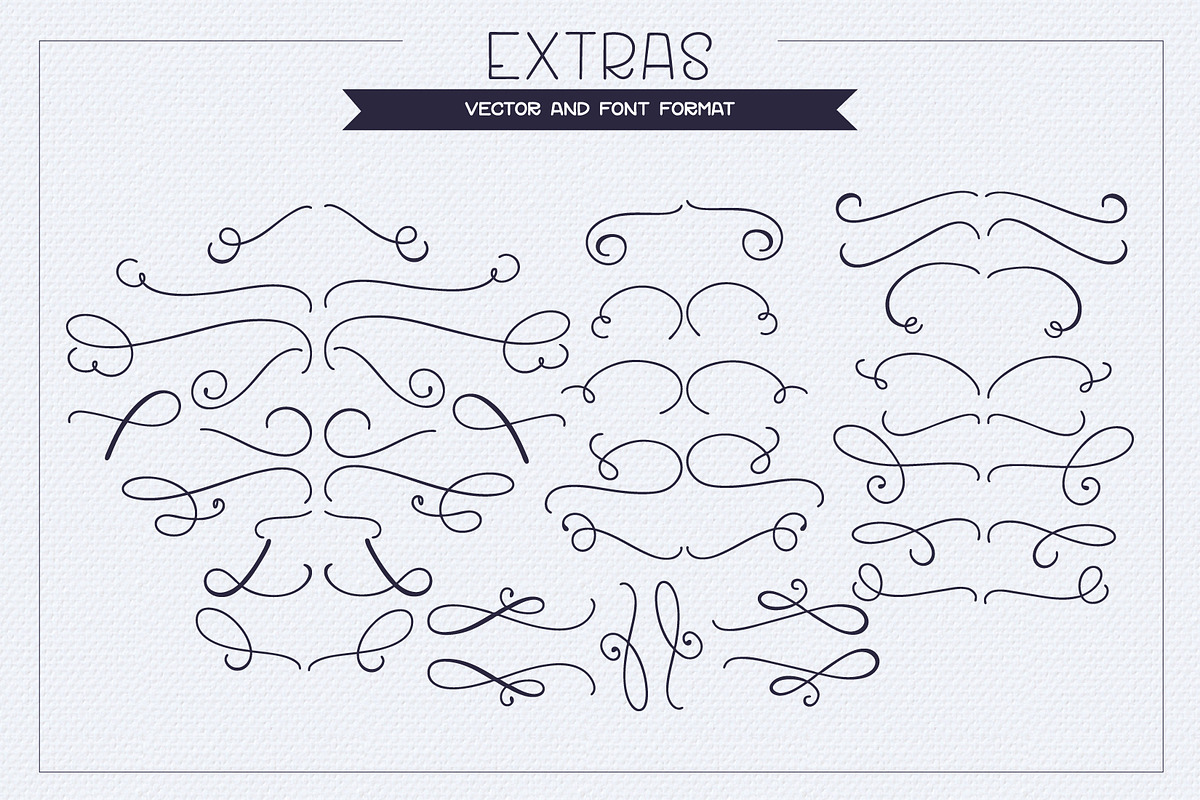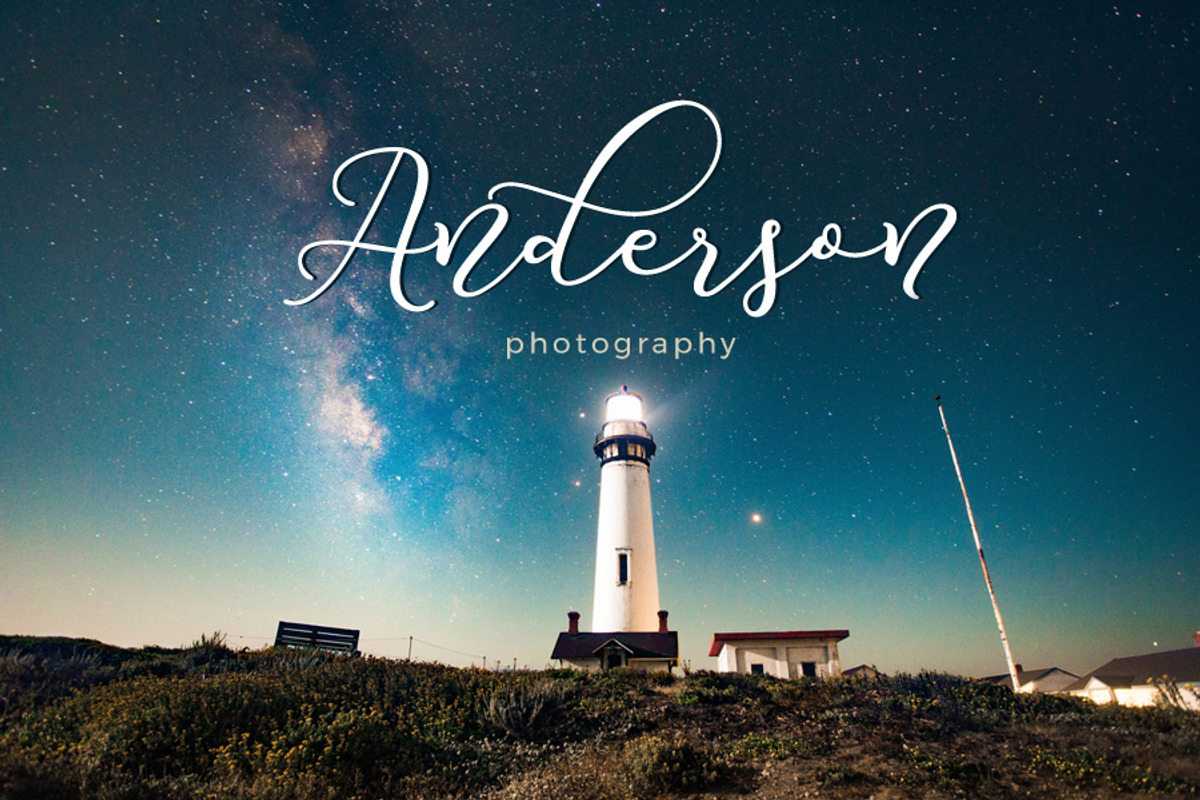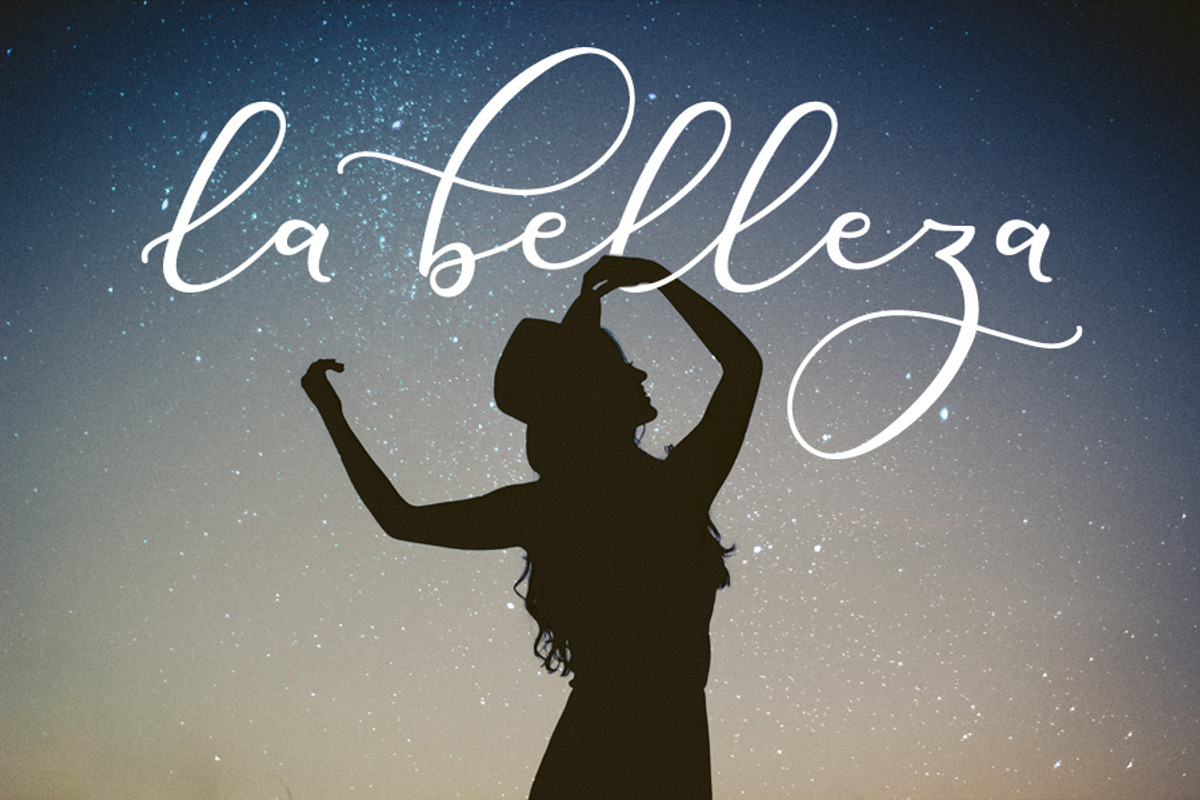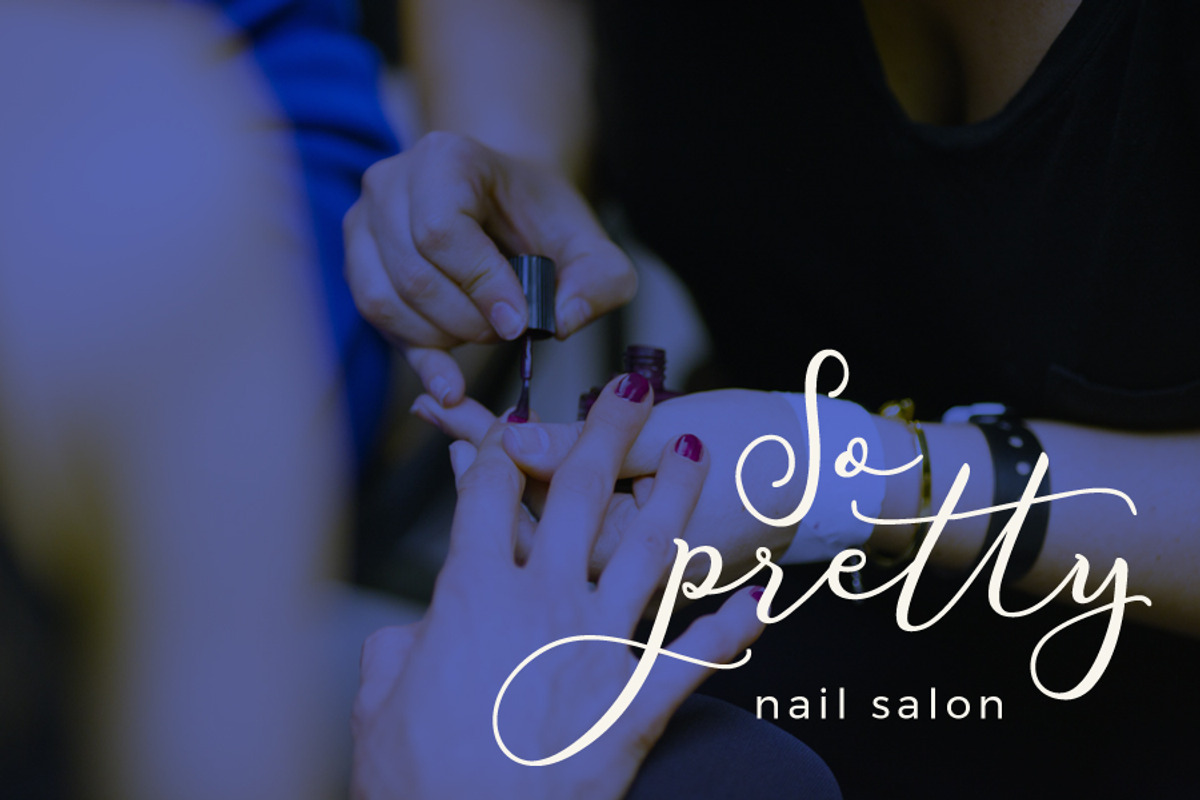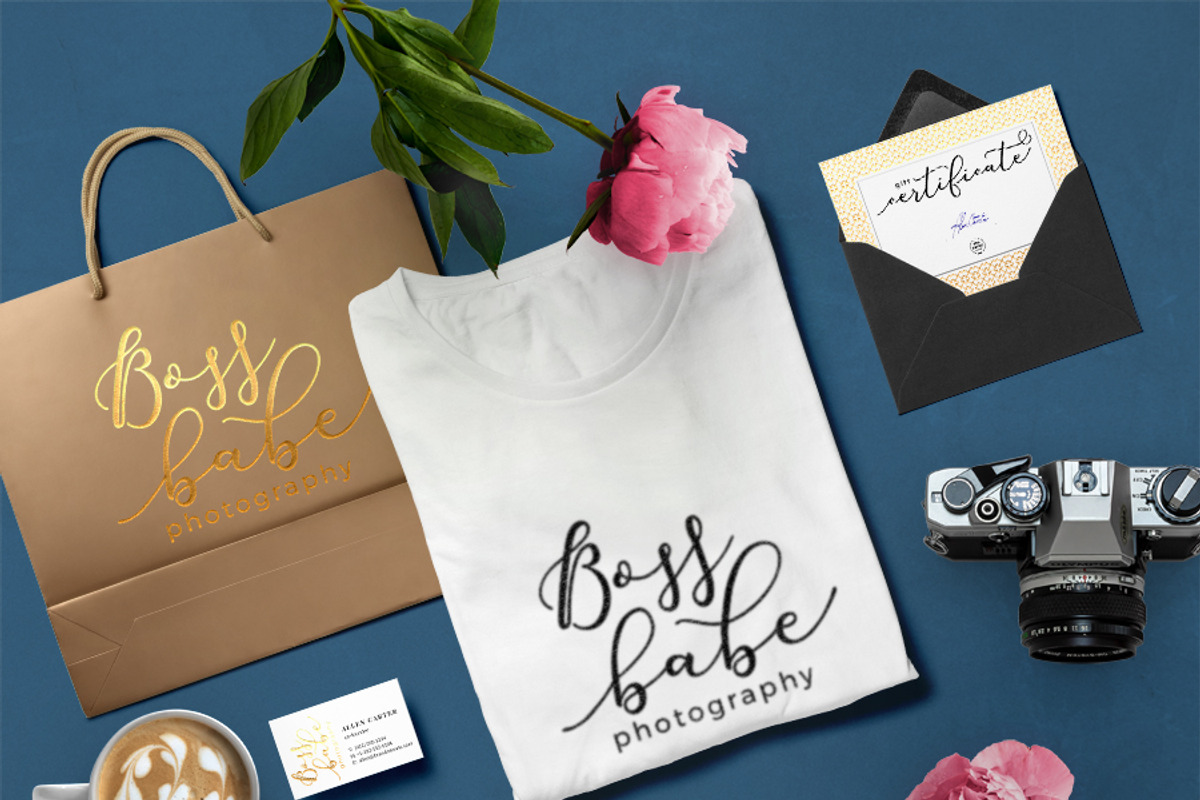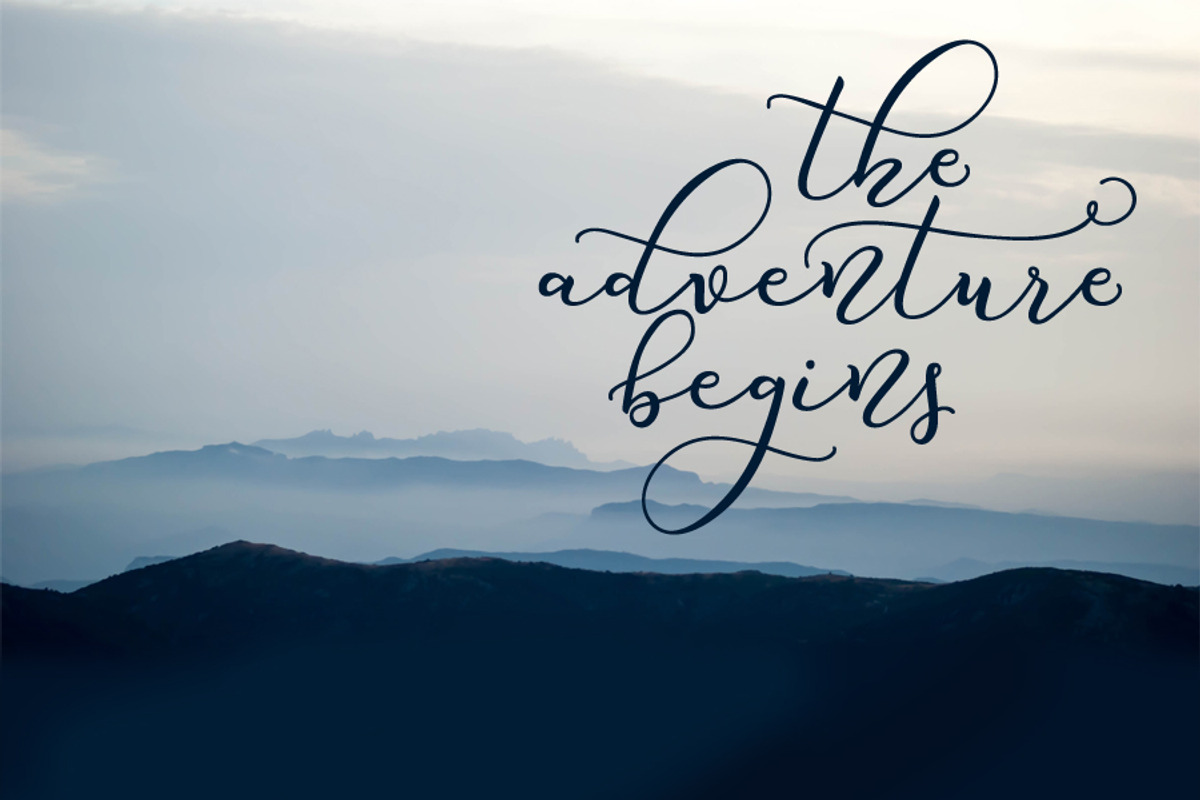
Darling letters font
Darling letters is a clean hand-lettered font, perfect for logos invitations, social media or any project that needs a little charm. It features a modern calligraphy style with a bouncy baseline. I've added some dramatic alternates with big loops to give your pieces a more natural lettered look, so it can look less like a font and more like regular hand-lettering.
Darling letters has over 450 glyphs
Two extra full alphabets with entry and exit characters